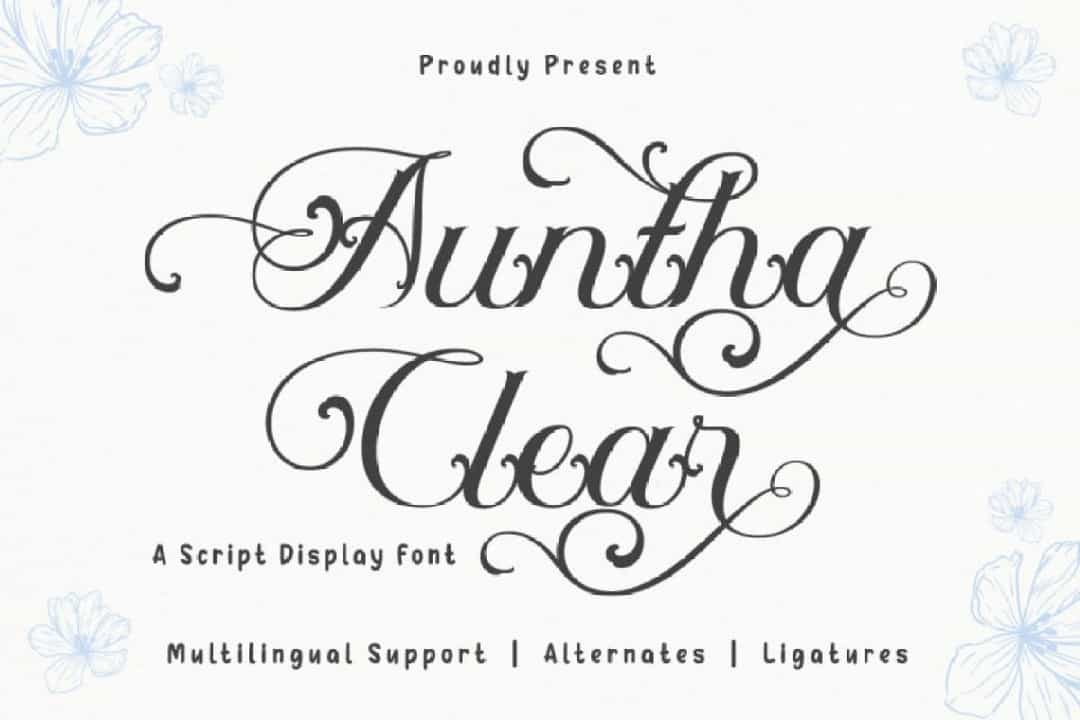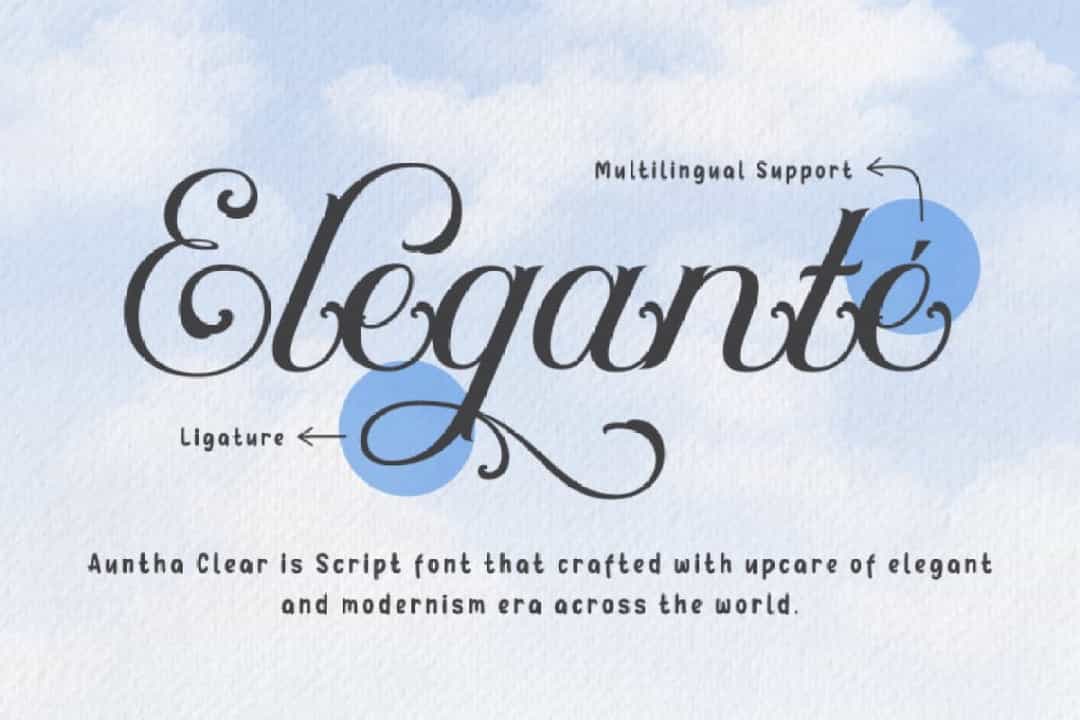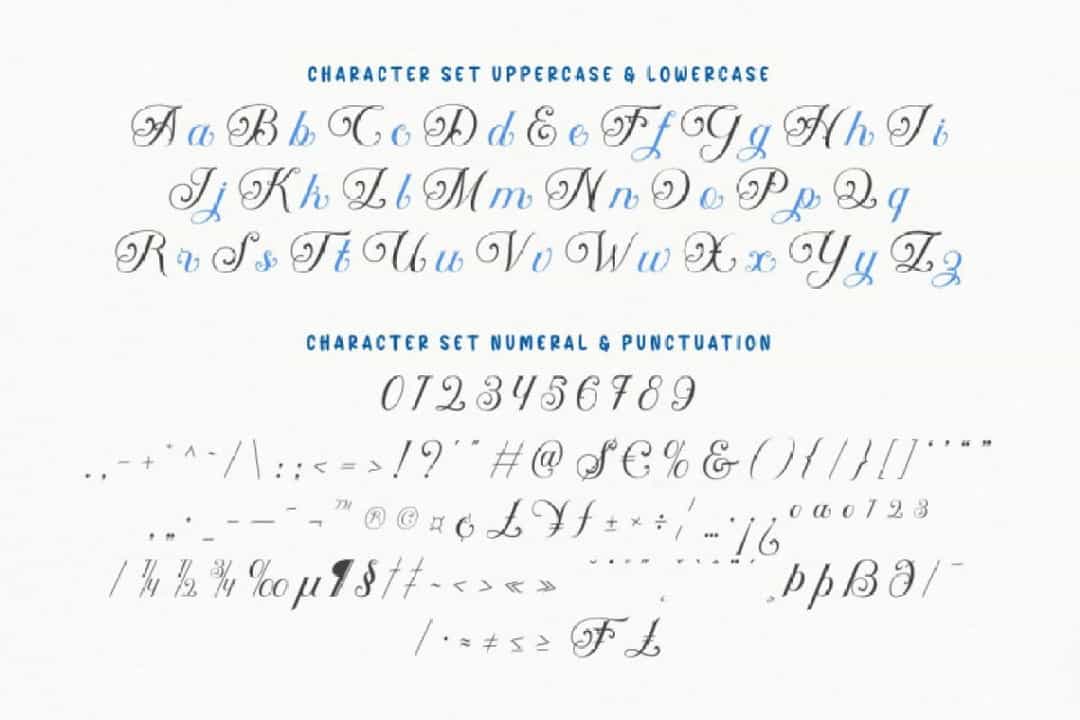
Auntha Clear is an artistic style which translates into stunning Script typography, making it the ideal partner for projects requiring modern yet elegant and playful looks. With its sophisticated design and soft knot, Auntha Clear makes for a wonderful choice in logos or greeting cards; due to its adaptability it can adapt easily to fit into any style or message conveyed.